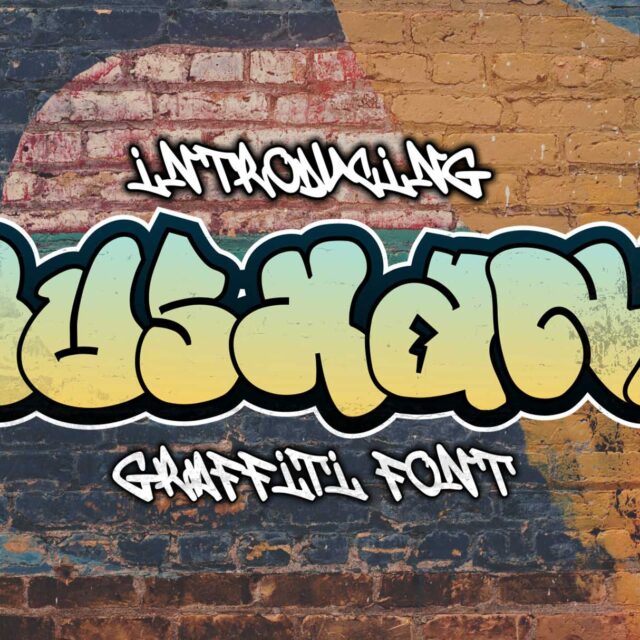
Wushand
"Wushand" is a bubble graffiti font with chubby, rounded characters.
About Wushand
“Wushand” is a bubble graffiti font with chubby, rounded characters. Bubble graffiti fonts typically feature letterforms with rounded, bulbous shapes, giving them a playful and lighthearted appearance. This style is often used in various design projects that aim to convey a fun and whimsical atmosphere. “Wushand” can be a great choice for designs that require a playful and friendly typography style.